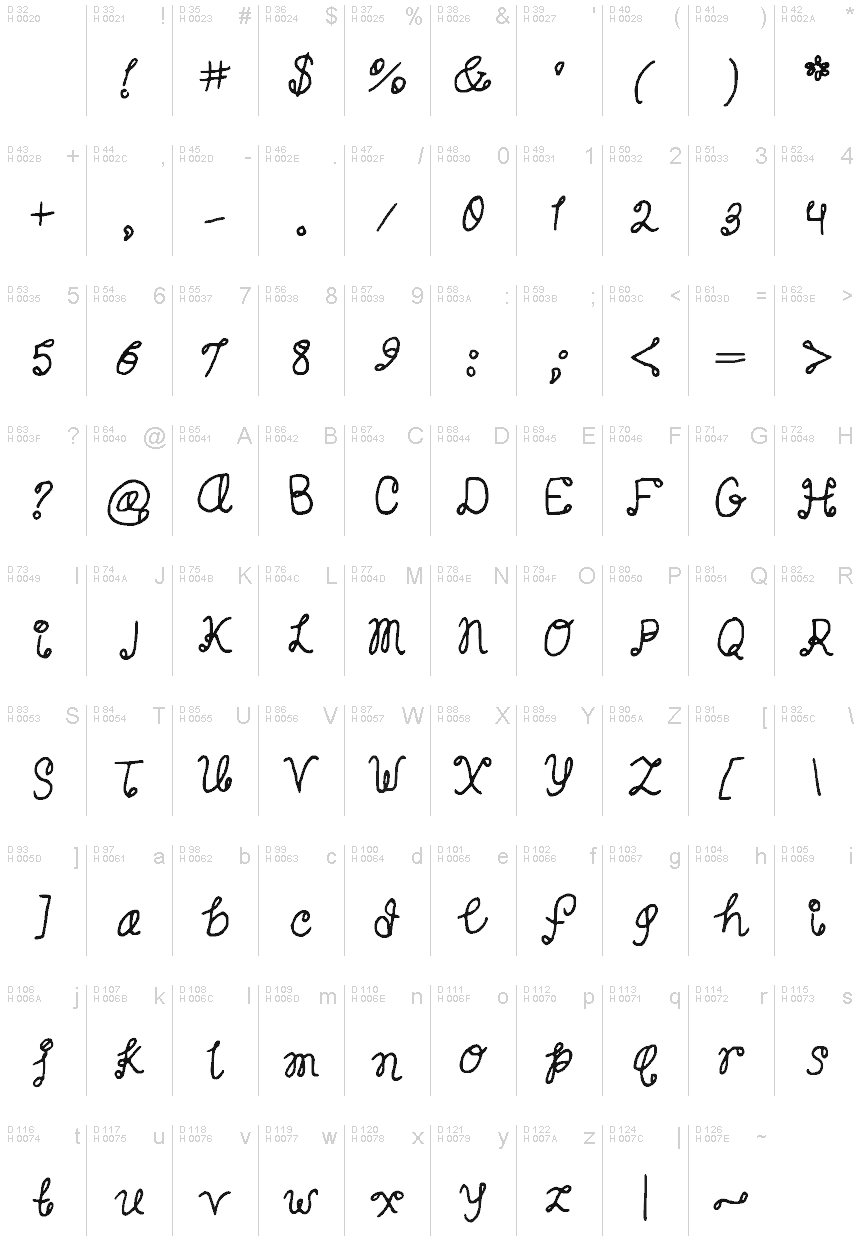
SugarCandy
Sugar Candy, a delightful creation by Chloe W., is a display font that exudes whimsical charm and light-hearted elegance. Its curly style embodies a playful yet sophisticated aesthetic, perfectly suited for projects aiming to capture attention with grace and flair. The light weight of Sugar Candy lends it an airy, delicate quality, making it an excellent choice for invitations, branding, or any design that desires a touch of sweetness without the heaviness.
With its unique swirls and bouncy curves, Sugar Candy brings a sense of joy to every character. This font is versatile enough to add personality to editorial headlines, create standout logos or give packaging designs an unforgettable twist. Whether it's used in digital media or print, Sugar Candy promises to sprinkle creative projects with its enchanting presence.